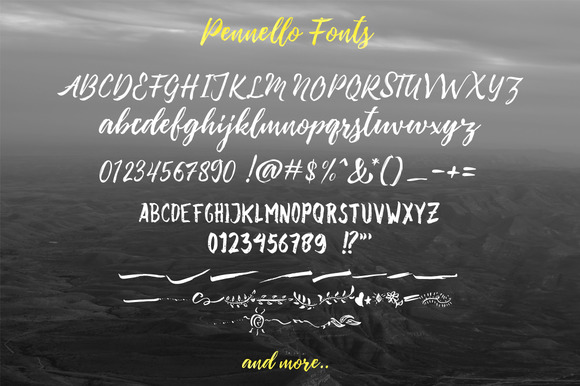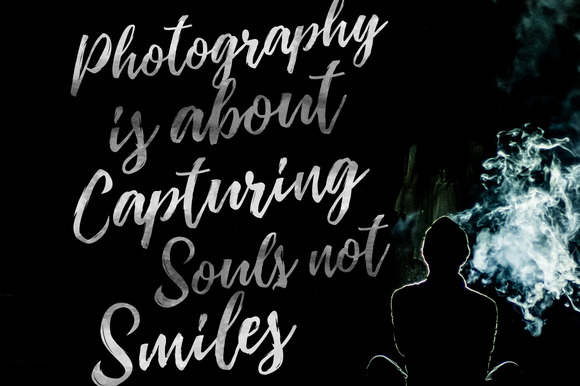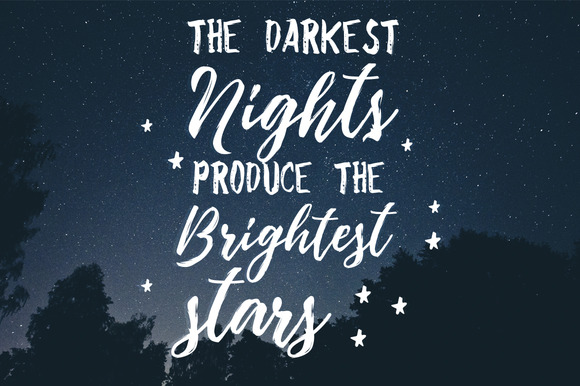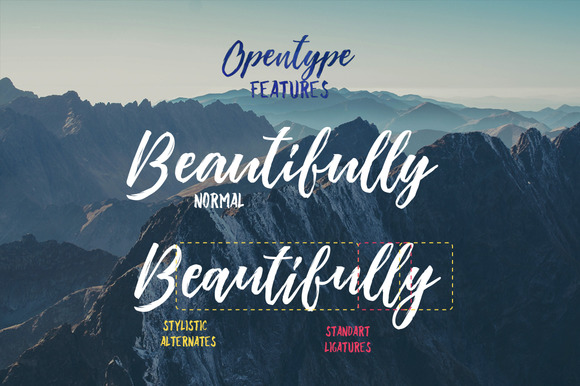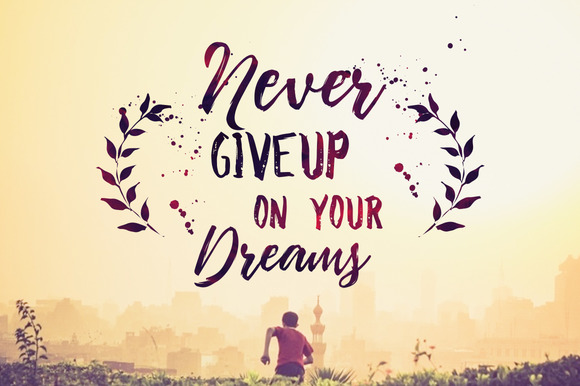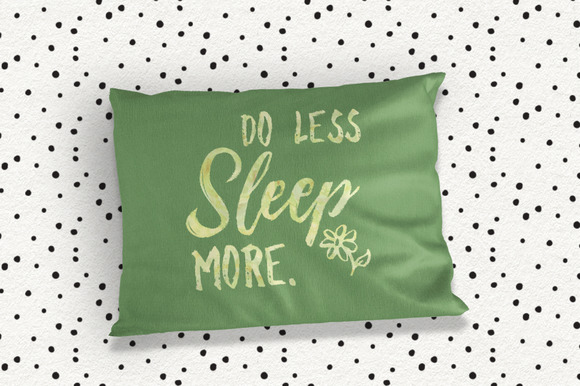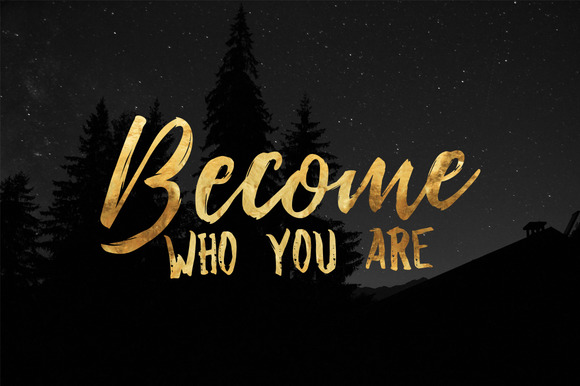
Pennello Font
About Pennello Font
In the vast universe of typography, the Pennello Script Font emerges as a beacon of artistry and elegance. This font does more than simply form words; it weaves a tapestry of visual storytelling through its hand-painted style, offering a glimpse into the nuanced world of script fonts. Designed for those who cherish the beauty of handcrafted artistry, Pennello Script Font brings a distinctive charm and a touch of personal flair to various design projects. Join us as we delve deeper into the essence of Pennello Script Font and uncover how it can transform your creative expressions with its unique elegance.
The Unique Artistry of Pennello Script Font
At its heart, the Pennello Script Font is an ode to the timeless elegance of hand-painted scripts. It stands out in the realm of digital fonts by capturing the spontaneous and organic flow of brush strokes, mirroring the hands of an artist at work. This script font is meticulously designed to encapsulate the essence of painting directly onto a digital canvas, making each letter a testament to the beauty of artistic imperfection.
Embracing Its Natural Elegance
The allure of the Pennello Script Font lies in its ability to evoke the charm of natural brushwork. With varied stroke thickness, deliberate imperfections, and fluid connections between letters, it achieves a balance between readability and artistic expression. This script font invites viewers into a more intimate and personal space, making it ideal for projects that require a human touch.
Versatility Across Design Landscapes
The versatility of the Pennello Script Font is one of its most compelling attributes. It seamlessly integrates into a multitude of design projects, from elegant wedding invitations and heartfelt personal letters to impactful brand identities and bespoke artwork. This script font adapts to your creative vision, enhancing the overall aesthetic without overpowering the message you wish to convey.
Transforming Creative Projects with Pennello
Incorporating the Pennello Script Font into your projects can elevate them from ordinary to extraordinary. Its hand-painted style adds depth and character to your designs, creating a distinctive presence that resonates with audiences. Whether it’s adding sophistication to stationery, authenticity to branding, or a personal touch to custom designs, Pennello Script Font is a tool that transcends mere text, becoming a medium for storytelling and emotional connection.
In conclusion, the Pennello Script Font is a celebration of the intersection between traditional artistry and digital innovation. It represents a fusion of natural elegance and personal expression, making it a valuable asset for designers, artists, and anyone looking to imbue their work with a sense of authenticity and character. Embrace the unique charm of Pennello Script Font in your next project, and witness the transformative power of this exquisite hand-painted script font.